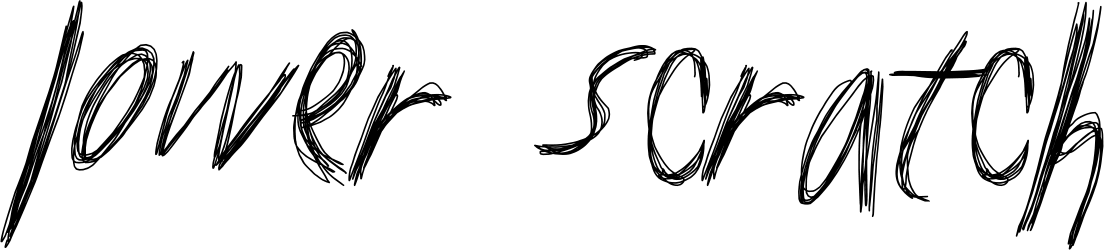
Lower Scratch Font
Lower Scratch will give your typography an assertive, horror feel with the scribble-style characters that are eroded and distressed! This scratched font is distorted, it has an unstable layout and you will have an eye-catching design that looks reckless but scary.
This scratched trash font provides lowercase alphabets, and numbers but doesn’t include capitalized letters or punctuations. The lower Scratch font is beneficial for many places. For instance, Halloween designs, branding, games, toys, logos, and anywhere you wish.